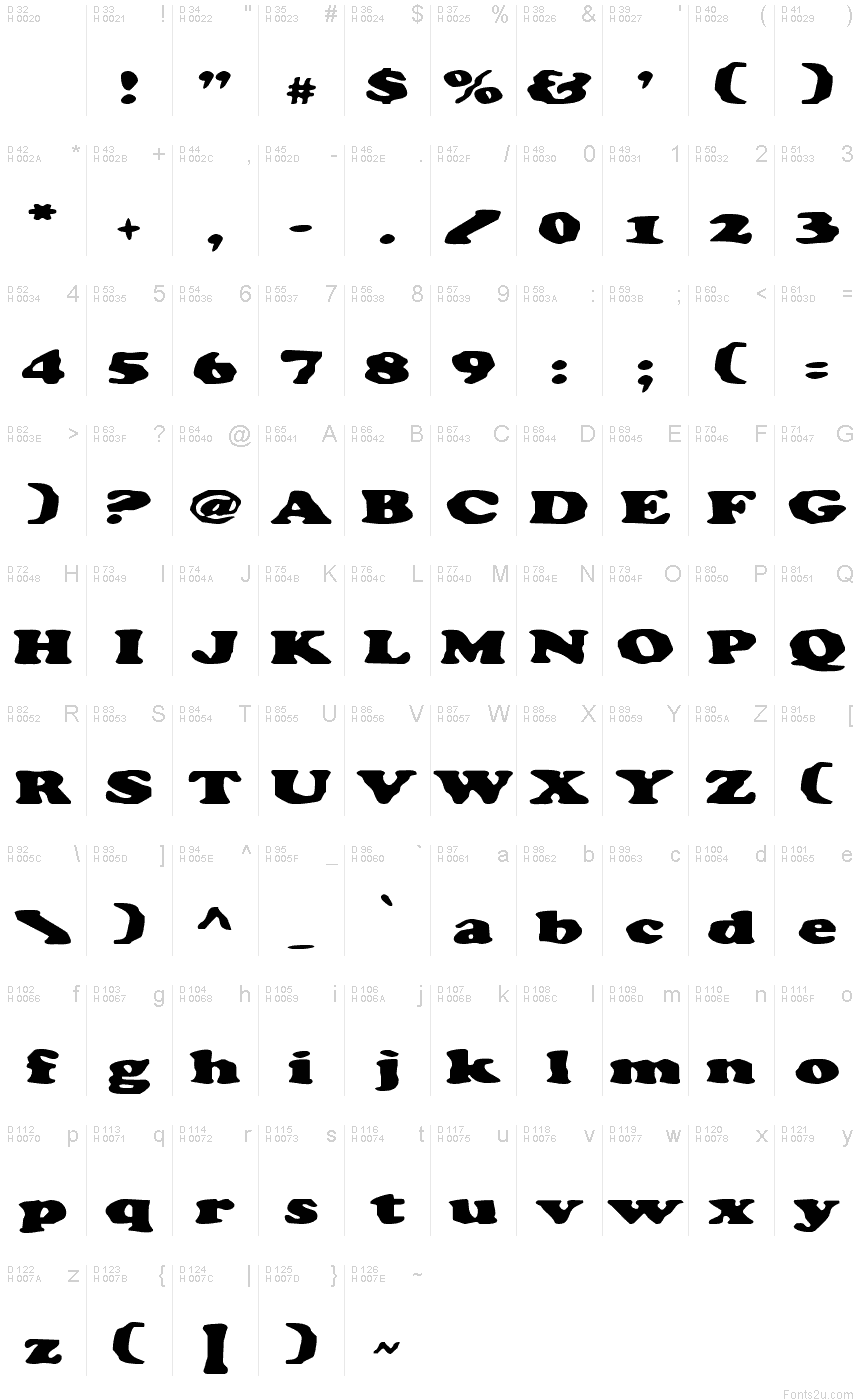
Charlemagne
Charlemagne font by Iconian Fonts is a free decorative eroded display typeface that feels like heavy ink splashed onto paper and left to bleed. Its bulky, uneven shapes and melted edges create a moody, organic texture that instantly suggests grime, ghosts, or something lurking just offstage. The letters stay surprisingly readable, though, so you get all the drama without losing the message.
Using Charlemagne, titles come out looking thick, wet, and slightly sinister—great for horror posters, haunted house branding, spooky game titles, dark fantasy book covers, grunge band logos, or Halloween merch. This free font shines in large sizes where the inky contours can really show. Pair it with a clean, neutral sans serif for body text to keep layouts legible while Charlemagne does the atmospheric heavy lifting.